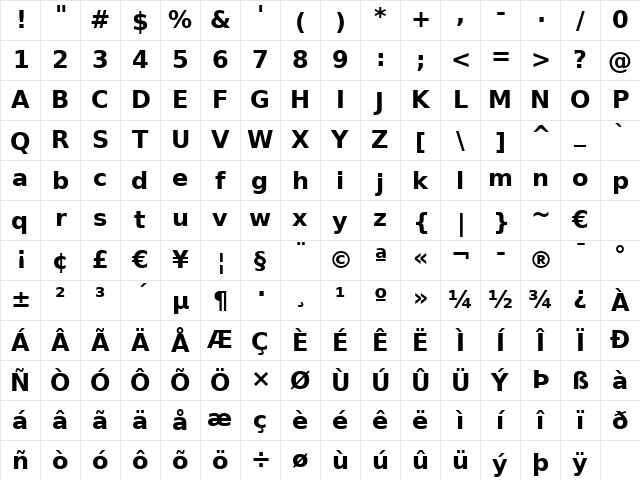
Complete PrimaSans BT Bold glyph index. Displaying only characters natively supported by PrimaSans BT Bold font.
PrimaSans BT is a composed and adaptable typeface that performs quietly and consistently across a wide range of design contexts. Its bold stroke weight gives it real presence on the page.